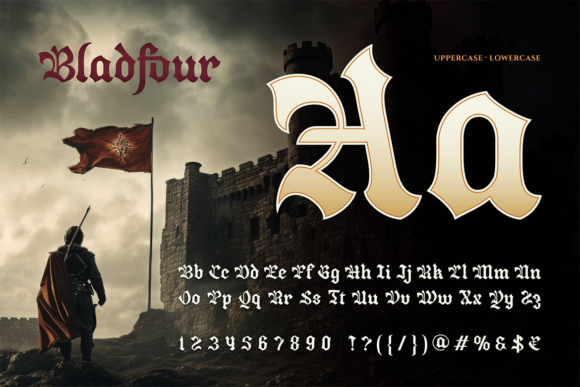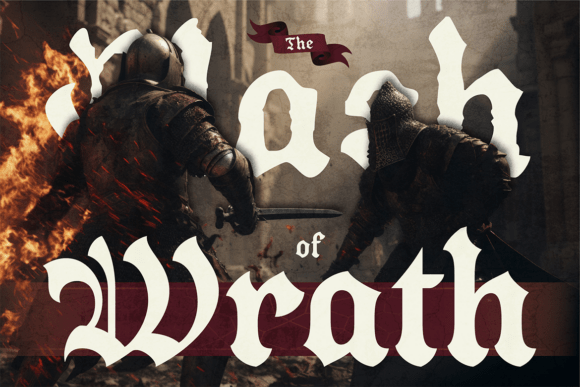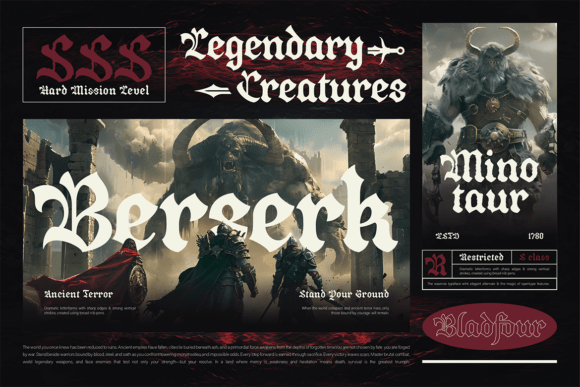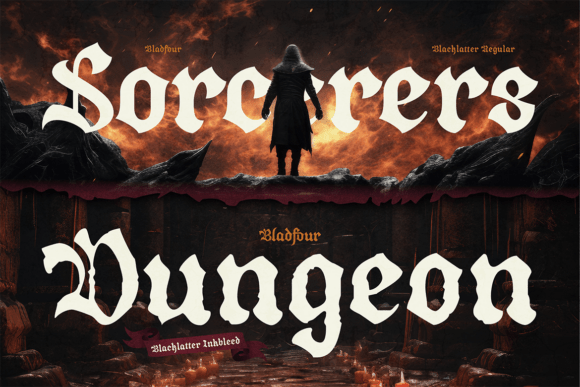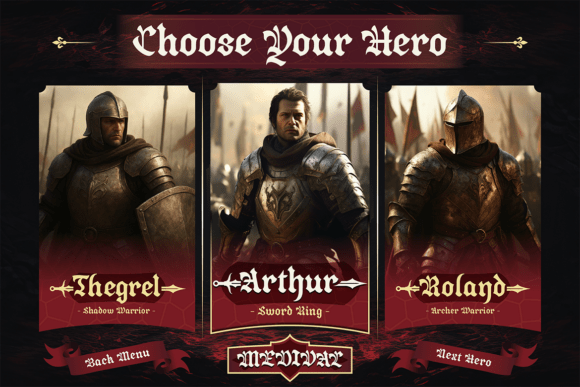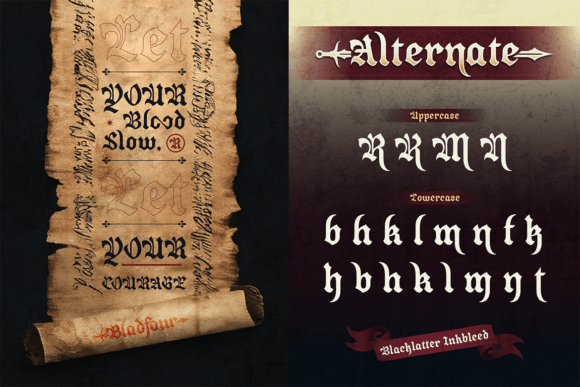
Unleash the Power of Bladfour Font: A Heroic Blackletter Typeface for Epic Stories
In the realm of typography, few fonts can evoke the sense of grandeur and mystery that Bladfour Font embodies. This powerful blackletter typeface is specifically designed for epic stories, dark fantasy worlds, and legendary visuals. With its bold, commanding presence, Bladfour is the perfect choice for designers and crafters looking to add a touch of medieval magic to their projects.
Inspired by Medieval Manuscripts and Ancient Warriors
Bladfour Font draws inspiration from the rich history of medieval manuscripts, ancient warriors, and heroic tales. Its design is rooted in the classic gothic character shapes and strong vertical strokes that evoke a sense of strength and resilience. The font’s creator aimed to capture the essence of a bygone era, infusing Bladfour with a sense of drama and cinematic impact.
Two Distinctive Styles: Blackletter and Inkbleed
One of the standout features of Bladfour Font is its versatility. The font comes with two distinctive styles: Blackletter and Inkbleed. The Blackletter style offers a clean, sharp look that’s perfect for designs that require a sense of sophistication and elegance. On the other hand, the Inkbleed style presents a raw, ink-soaked texture that adds a touch of grit and drama to any design. This dual-style approach allows designers to experiment with different looks and feels, ensuring that their projects stand out from the crowd.
Perfect for Fantasy Games, Movie Titles, and Medieval-Themed Projects
Bladfour Font is specifically designed for use in fantasy games, movie titles, book covers, branding, posters, logos, and medieval-themed projects. Its strong, commanding presence makes it an excellent choice for designs that require a sense of heroism and grandeur. Whether you’re working on a game title, a fantasy poster, or a book cover, Bladfour instantly delivers a strong medieval atmosphere that’s sure to captivate your audience.
Carefully Crafted Details and Classic Gothic Character Shapes
Bladfour Font boasts carefully crafted details that set it apart from other blackletter typefaces. Its classic gothic character shapes, strong vertical strokes, and intricate details work together to create a font that’s both visually striking and highly legible. The font supports uppercase and lowercase letters, numerals, punctuation, and a wide range of glyphs, making it flexible for both display and headline use.
What Makes Bladfour Font Heroic and Dark?
So, what makes Bladfour Font feel heroic and dark? The answer lies in its design. The font’s bold, commanding presence is perfect for designs that require a sense of strength and resilience. The Inkbleed style, with its raw, ink-soaked texture, adds a touch of grit and drama to any design. The classic gothic character shapes and strong vertical strokes evoke a sense of mystery and grandeur, making Bladfour an excellent choice for designers looking to create designs that feel epic and legendary.
Tips for Using Bladfour Font in Your Designs
- Experiment with different styles: Try pairing the Blackletter and Inkbleed styles to create a unique look that sets your design apart.
- Use it for headlines and titles: Bladfour Font is perfect for headlines and titles that require a sense of drama and impact.
- Pair it with contrasting fonts: Pair Bladfour with contrasting fonts to create visual interest and add depth to your design.
- Don’t be afraid to experiment: Bladfour Font is versatile, so don’t be afraid to experiment with different colors, textures, and design elements.
| Font Name | Bladfour Font |
| Author | Burntilldead |
In conclusion, Bladfour Font is a powerful blackletter typeface that’s perfect for designers and crafters looking to add a touch of medieval magic to their projects. With its bold, commanding presence, classic gothic character shapes, and carefully crafted details, Bladfour is an excellent choice for fantasy games, movie titles, book covers, branding, posters, logos, and medieval-themed projects. Whether you’re looking for a font that feels heroic, dark, or epic, Bladfour Font is sure to deliver.